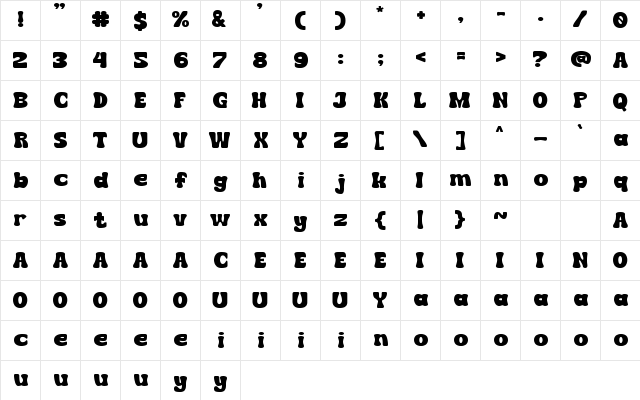
Retropulse Regular Free Font
Retropulse Regular
Foundry: PINISIART
Designer: PINISIART TEAM
Design Context for Retropulse
Retropulse wears its vintage influences proudly, with letterforms that recall mid-century signage, classic packaging, and nostalgia-driven design.
Font Pairing: Combine Retropulse with a simple slab or neutral sans - period-accurate companions reinforce the vintage feel without competing for attention.
Pro Tip: Lean into Retropulse's period character by pairing it with aged paper textures, muted colour palettes, and vintage illustration styles.